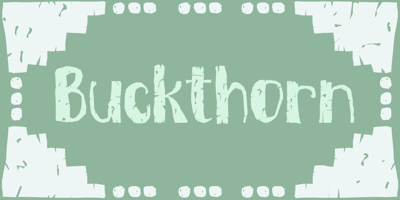
Buckthorn Font is a robust, organic, and distinctly rustic typeface, perfect for designs that aim to convey authenticity, natural charm, and a rugged, handcrafted feel. Imagine it gracing the labels of artisanal food products, adding a warm, earthy touch to outdoor adventure brand logos, or giving a unique, distressed identity to handcrafted goods packaging. It’s an exceptional choice for designing brewery labels, crafting engaging farm-to-table restaurant menus, personalizing rustic wedding invitations, and enhancing any project where a sense of traditional craftsmanship, natural elements, and unpretentious character is desired. Its textured appearance and sturdy forms make it suitable for anything from folk music album art to local market signage, adding an immediate sense of genuine appeal.
What makes Buckthorn Font truly exciting is its remarkable ability to blend a strong, dependable structure with an authentic, weathered texture. It possesses an inherent tactile quality that feels genuinely wood-carved, hand-printed, or naturally aged, avoiding the sterile perfection of purely digital fonts. Designers are often drawn to its raw charm, subtle imperfections, and the organic feel that gives each character a unique, handcrafted appeal. It’s a font that communicates with a sense of honesty, durability, and a connection to nature, ensuring your message feels grounded and authentic. Buckthorn Font brings a powerful, yet approachable, rustic charm to your designs, allowing them to connect with audiences who appreciate genuine, handcrafted aesthetics and a touch of the outdoors.
The Buckthorn Font family typically offers a range of styles and features that enhance its versatility for various creative applications. While specific family members might vary, you can often expect a singular, impactful Regular weight that embodies its signature textured, rugged appearance. Given its specialized nature, Buckthorn Font families might also include variations in the intensity of the distress, alternative characters for stylistic diversity, or even multilingual support to extend its organic appeal globally. These features enable designers to create highly personalized text, ensuring that Buckthorn Font can adapt to intricate design requirements while maintaining its authentic, expressive character across various applications and sizes.